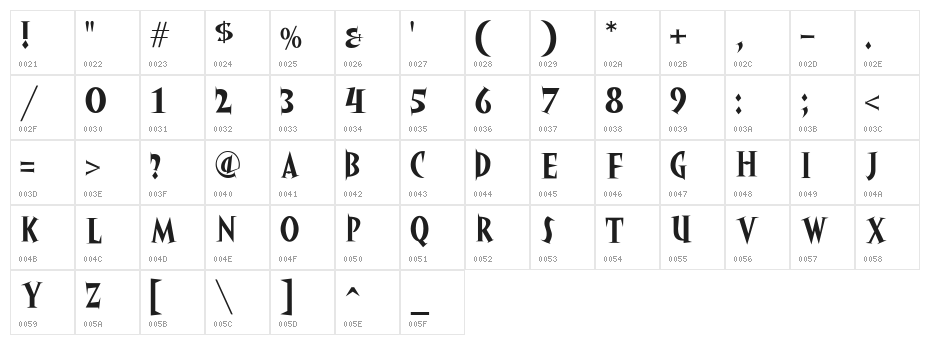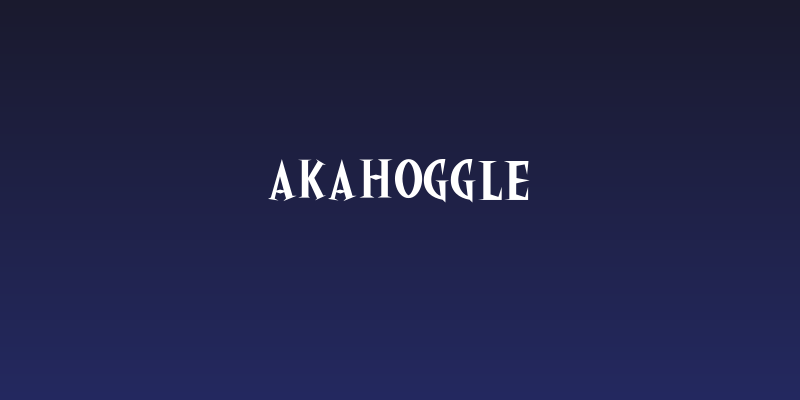
akaHoggle Font
akaHoggle Description
This font features a bold and dramatic style with sharp, angular serifs and a strong presence. The uppercase letters exhibit a gothic influence with pointed edges and a slightly condensed form, giving them a striking appearance. The lowercase letters maintain the same sharpness, with unique curves that add a touch of elegance. Numbers are equally bold, with distinct, angular shapes that ensure readability. Special characters follow the same design principles, making them cohesive with the rest of the set. The overall aesthetic is both classic and modern, suitable for making a statement in any design.
| Width | Condensed |
| Overall Style | Gothic, Modern |
| Proposed Projects | Ideal for branding, posters, book covers, and any project requiring a dramatic and impactful typeface. |